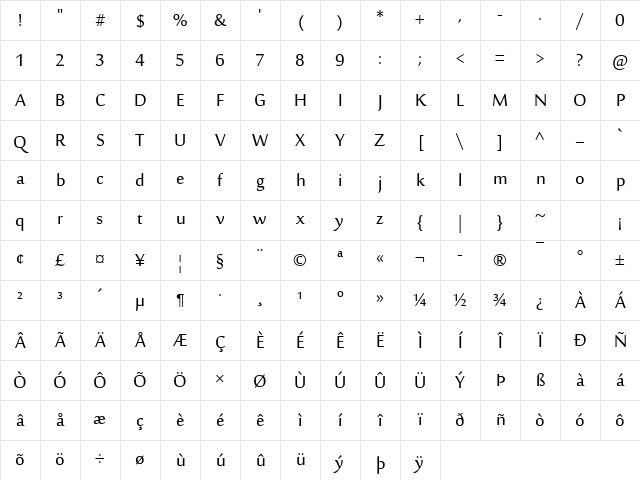
Sakkal Majalla Regular
Foundry: Mamoun Sakkal, Sakkal Design
Designer: Mamoun Sakkal, Sakkal Design and Steve Matteson, Ascender Corp.
Design Context for Sakkal Majalla
Sakkal Majalla is a composed and adaptable typeface that performs quietly and consistently across a wide range of design contexts.
Who designed the Sakkal Majalla Regular font?